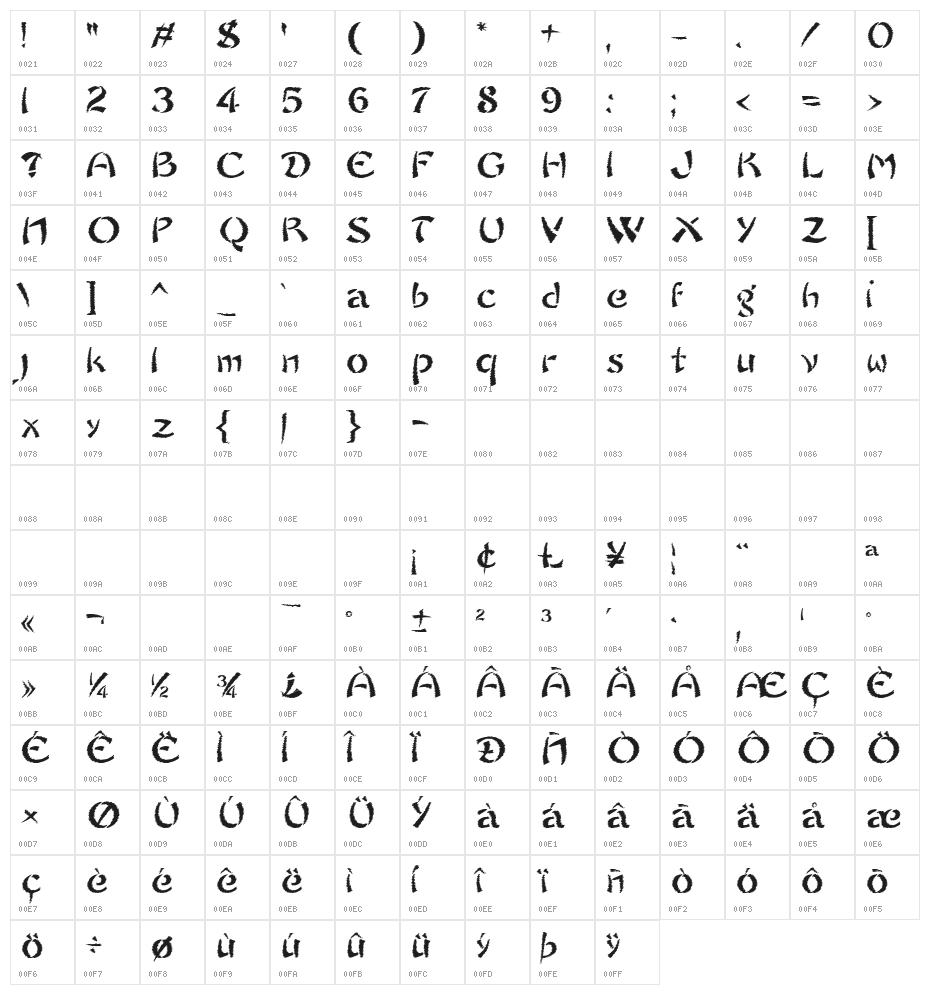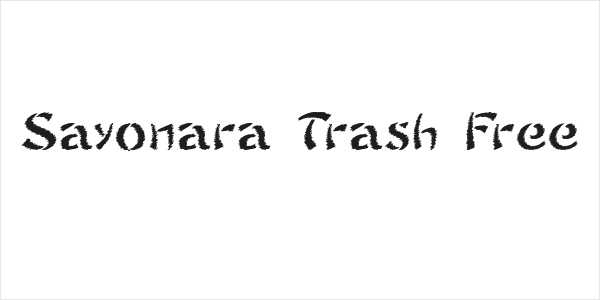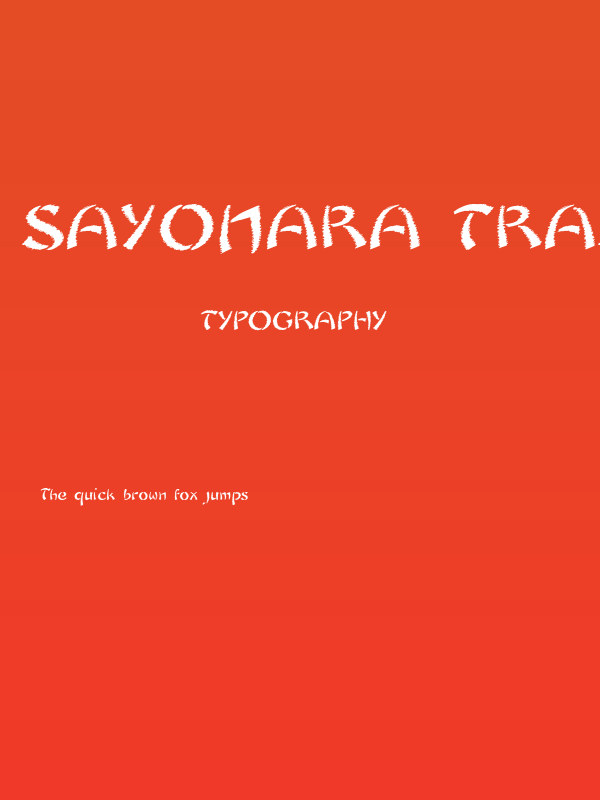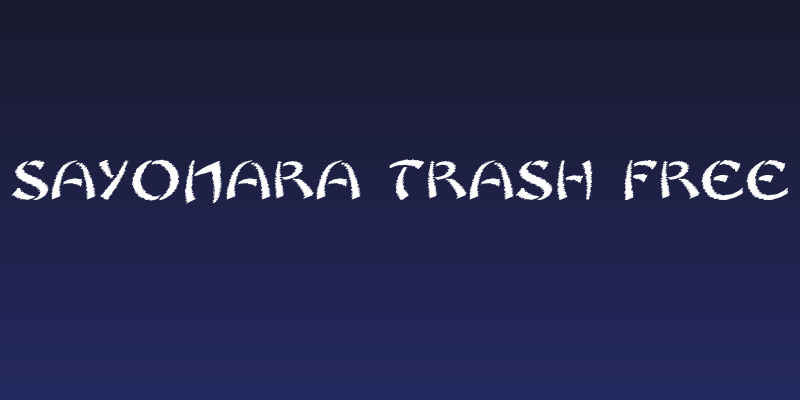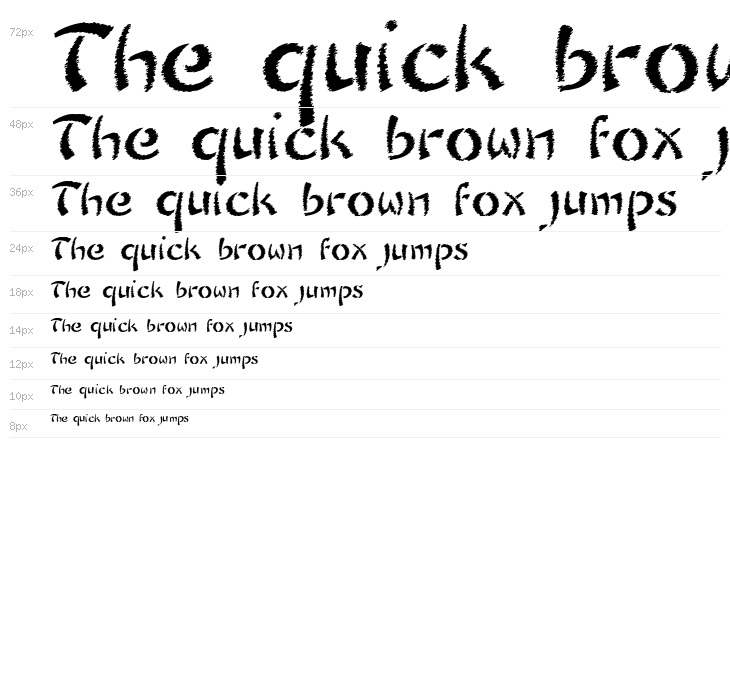
Sayonara Trash Free Font
Sayonara Trash Free Description
This font features a bold and dynamic brushstroke style, reminiscent of calligraphy with a modern twist. The characters are crafted with a rough, textured edge, giving them a sense of movement and energy. Each letter is uniquely styled, maintaining a consistent flow throughout the alphabet. The uppercase letters are bold and commanding, while the lowercase letters retain a playful yet sophisticated appearance. Numbers and special characters are equally expressive, making this font versatile for various creative applications. The overall design is eye-catching and suitable for projects that require a strong visual impact.